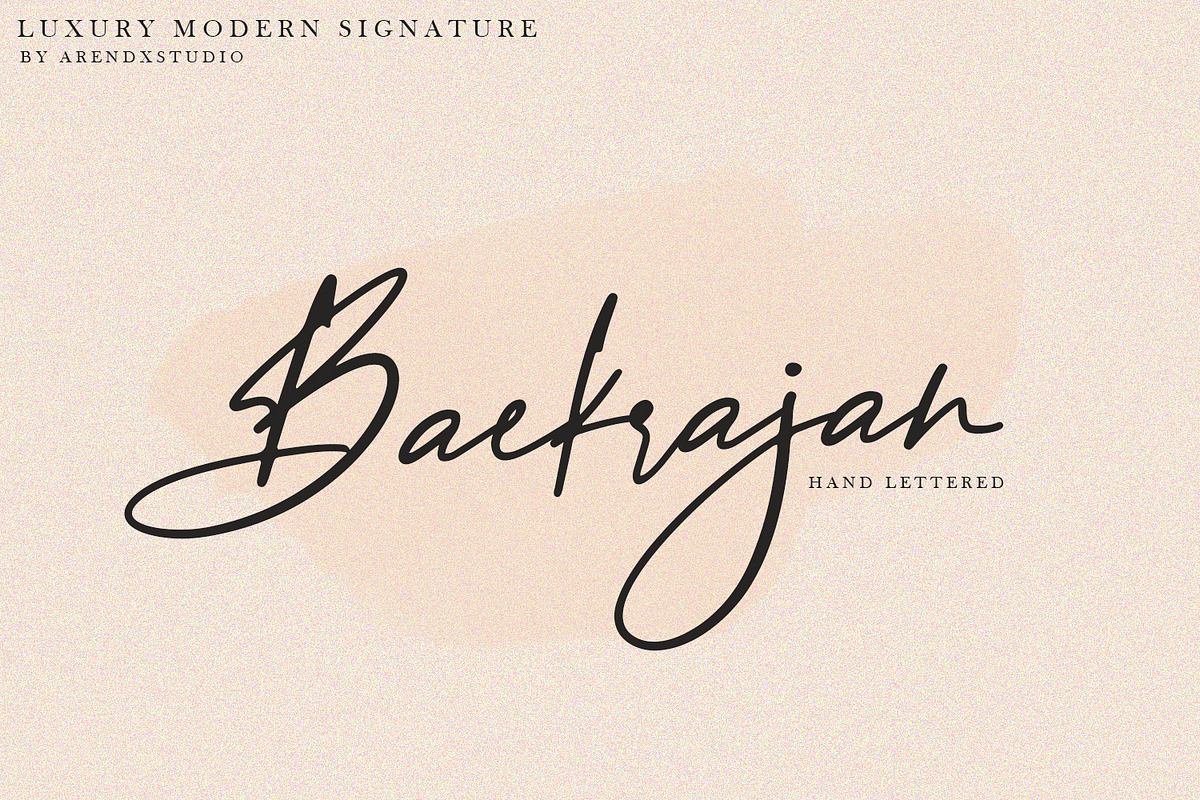
Baekrajan Luxury Modern Signature Free Download
Baekrajan Luxury Modern Signature Font Free Download
Please note, to use this font for commercial purposes, you must purchase the full version. Baekrajan is an elegant and luxurious modern signature font that exudes sophistication and class. With its smooth, flowing letterforms and stylish design, this font is perfect for creating high-end logos, invitations, branding, and other premium projects. Whether you're designing for a luxury brand, an upscale event, or a chic wedding invitation, Baekrajan adds a refined and personalized touch to your work. Test it out and enjoy free download access for personal use. Experience the beauty and elegance of Baekrajan Luxury Modern Signature Font Free Download before purchasing the commercial license. Add a luxurious, signature style to your designs with Baekrajan.